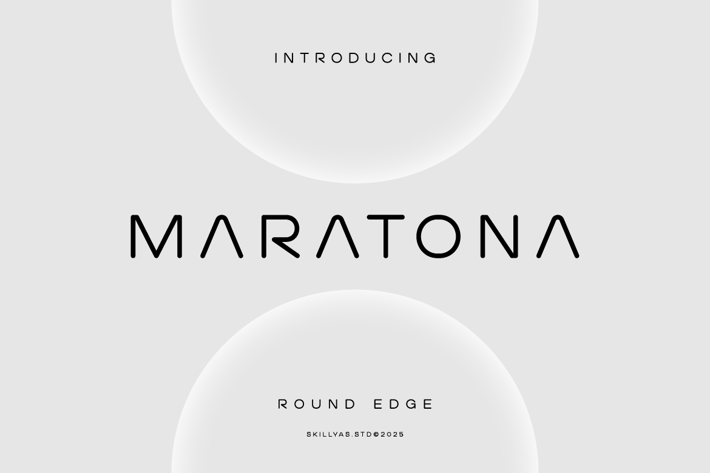
Maratona Sans Serif Font
Maratona is a Clean and Versatile Sans-Serif Font, Perfect for Modern Branding, Web Design, and Minimalist Layouts.
Its sleek and legible style ensures clarity and adaptability for various design projects.
- Uppercase & Lowercase Letters
- Punctuation & Symbols Support
- PUA encoded Range Standard Alternative Style
- Ligature (Standard and Discretionary)